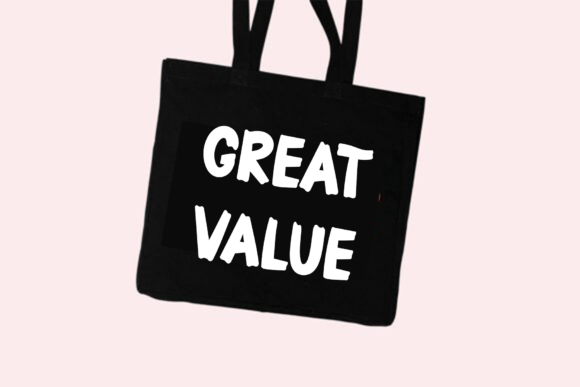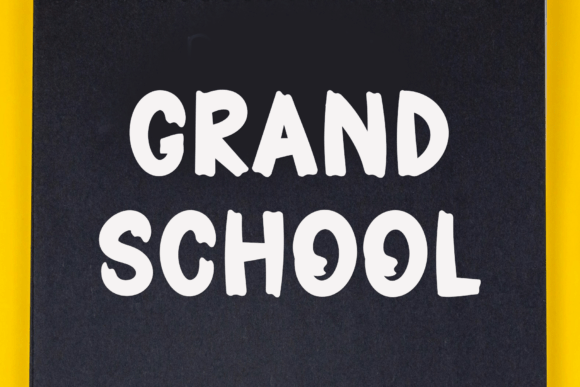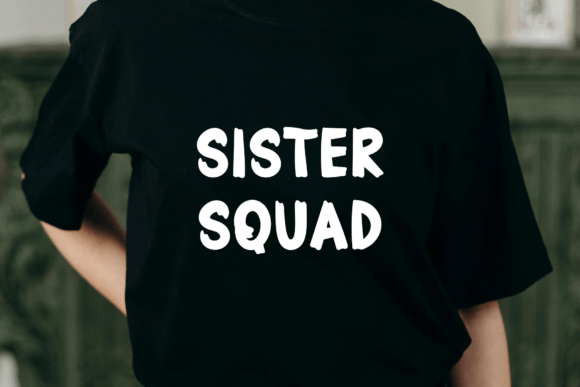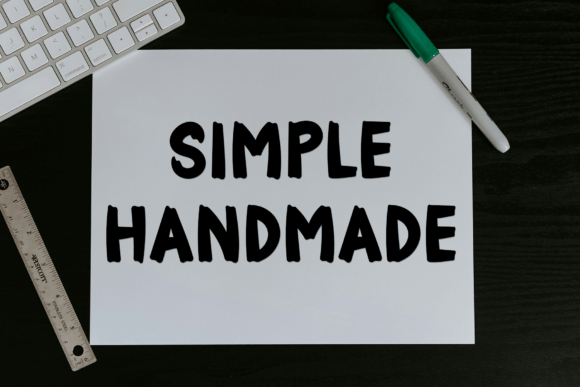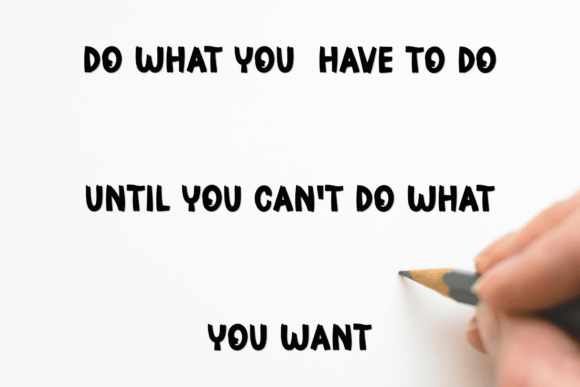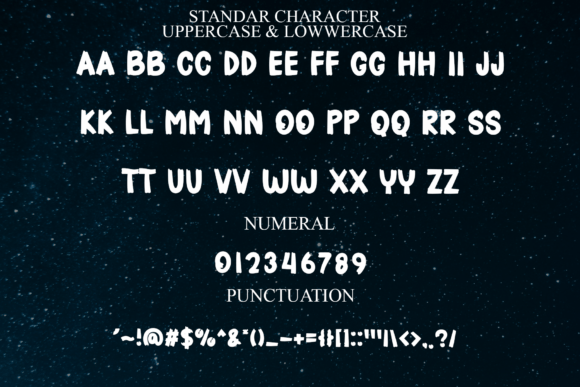
Bringing Joy to Your Designs with Awesome Rainbow Font
Have you ever been scrolling through your social media feed, and a post catches your eye because of its vibrant colors and playful typography? That’s the magic of creative design, and it’s exactly what the Awesome Rainbow Font aims to bring to your projects. With its round, playful strokes and charming hand-drawn aesthetic, this font is perfect for adding a touch of warmth and friendliness to your designs.
Whether you’re working on a personal project, creating invitations, or crafting social media graphics, the Awesome Rainbow Font is an invaluable tool in your design arsenal. Its PUA Encoded glyphs make it easily accessible in various application engines, allowing you to unleash your creativity without any hassle. By incorporating this font into your designs, you can create visually appealing and engaging content that resonates with your audience.
Key Features of Awesome Rainbow Font
- Font Family: A unique, customizable font family with multiple styles and weights, allowing users to create a wide range of color effects.
- Color Options: Features a wide range of color effects, including gradient, neon, and glow effects, making it ideal for creative and eye-catching designs.
Awesome Rainbow Font Review
Overall, I think “Awesome Rainbow Font” is a fun and quirky addition to any project. ✨ The bold, colorful design makes it perfect for adding a pop of personality to your work. I particularly enjoy the way it can be used to draw attention to specific elements on a page or screen.
- Highly customizable: The font can be easily adjusted to fit your brand’s color scheme or style.
- Eye-catching: The bold, rainbow colors are sure to grab the user’s attention.
- Fun and playful: This font is perfect for adding a lighthearted touch to your project.
- Not suitable for formal or professional projects: The bold, colorful design may not be suitable for serious or formal projects.
- May be distracting: The bright colors may be overwhelming or distracting for some users.
- Not ideal for body text: The font is best used for headings or accents, as it may be difficult to read in large blocks of text.
Overall, I think “Awesome Rainbow Font” is a great choice for projects that need a fun and playful touch. Just be sure to use it judiciously and in the right context.
Use Awesome Rainbow Font to add a pop of color and whimsy to your designs.
It’s perfect for social media graphics, blog posts, and children’s content.